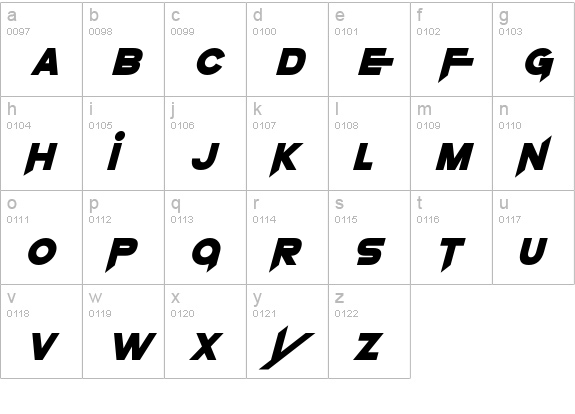
Knife Princess Font Details
Knife Princess is a donationware font in the Modern > Sci-Fi category, designed by Darrell Flood. It has been downloaded 235 times and is available for Windows, Mac and Linux.
Knife Princess font is a bold and stylish typeface that exudes a sense of power and edginess. With sharp, intricate details reminiscent of a finely crafted blade, this font is perfect for projects that require a touch of daring and sophistication. Its elegant yet fierce design makes it ideal for headlines, logos, and branding materials.